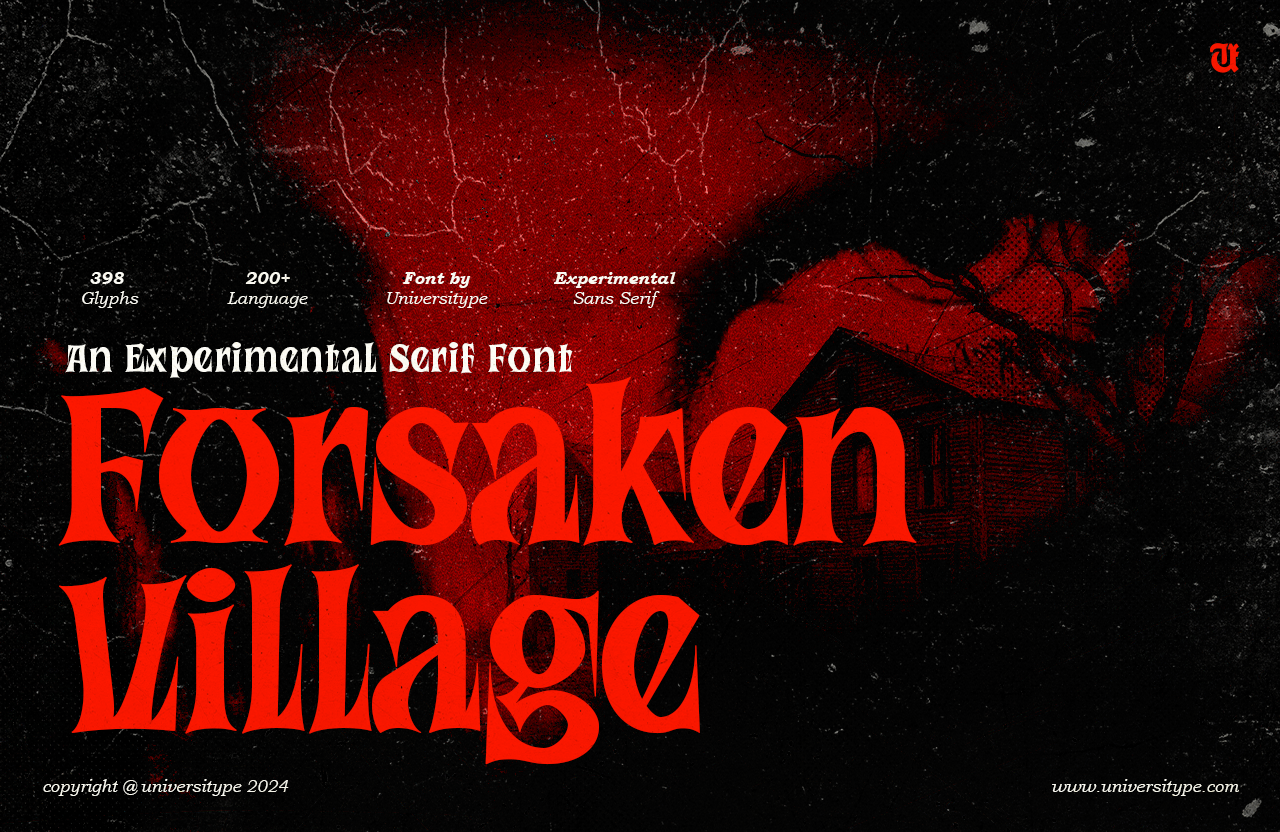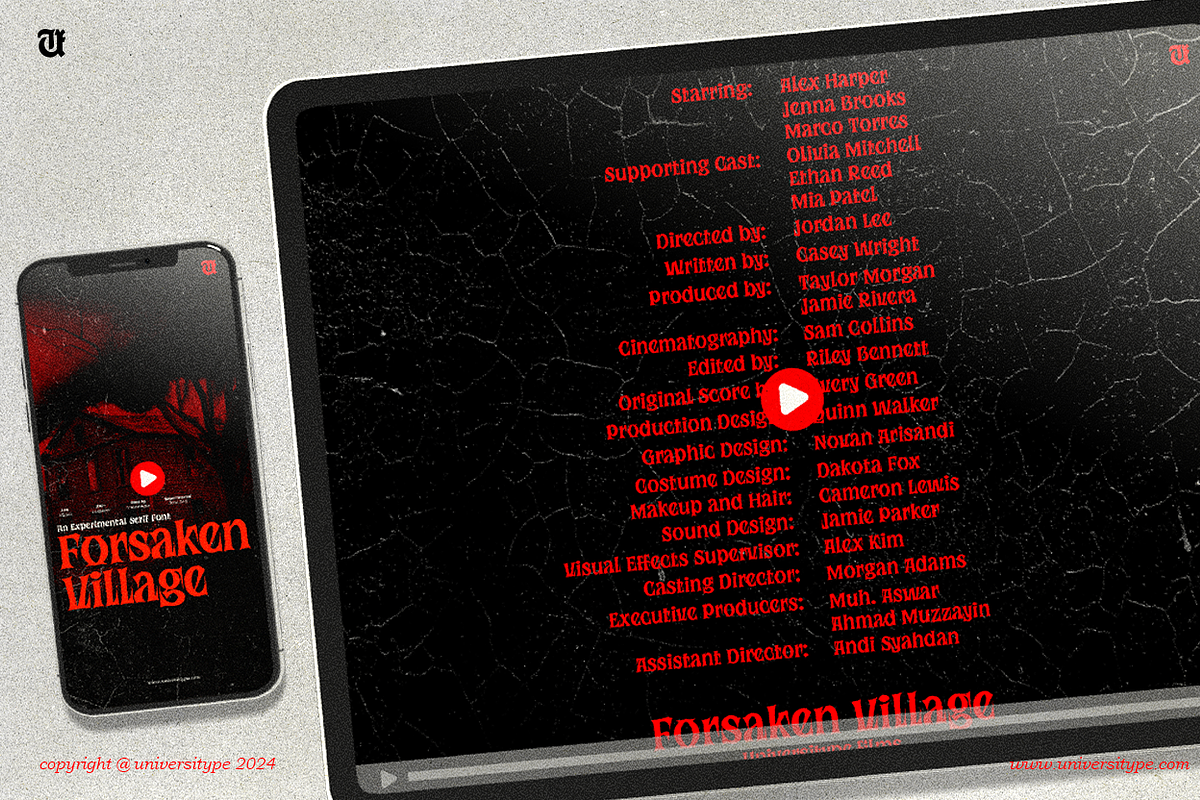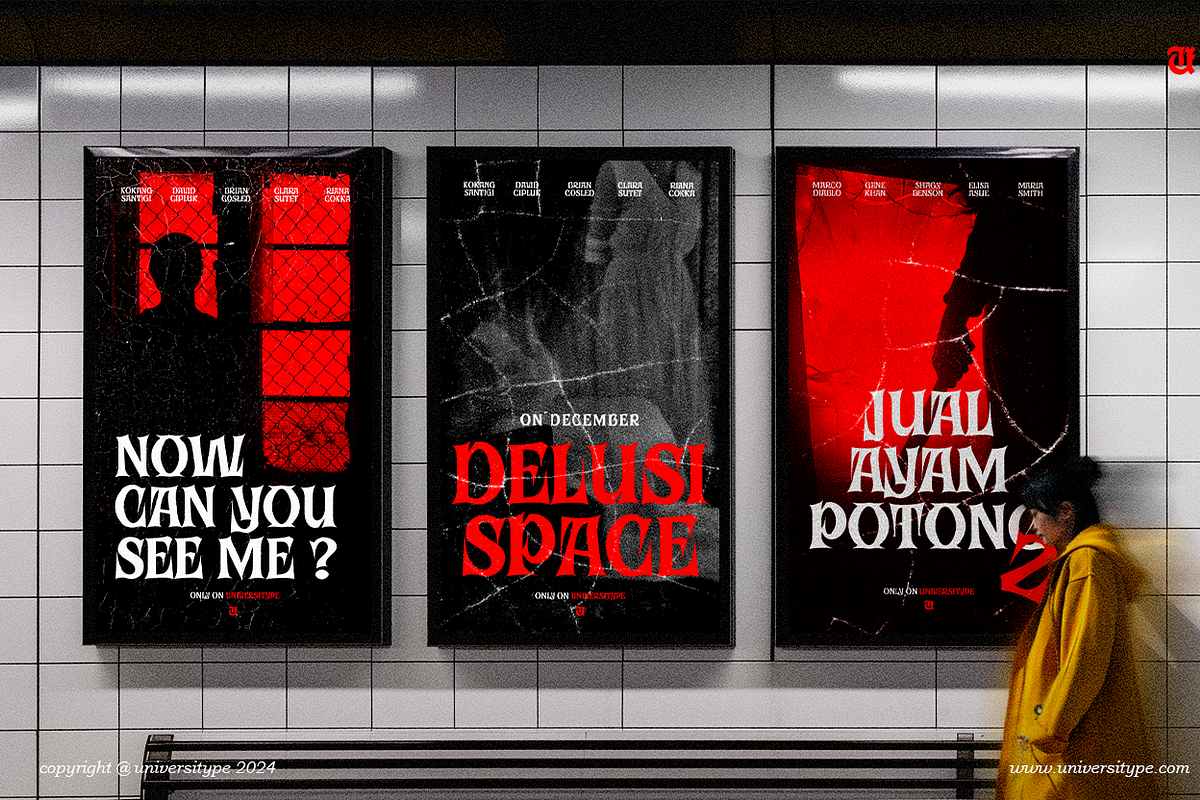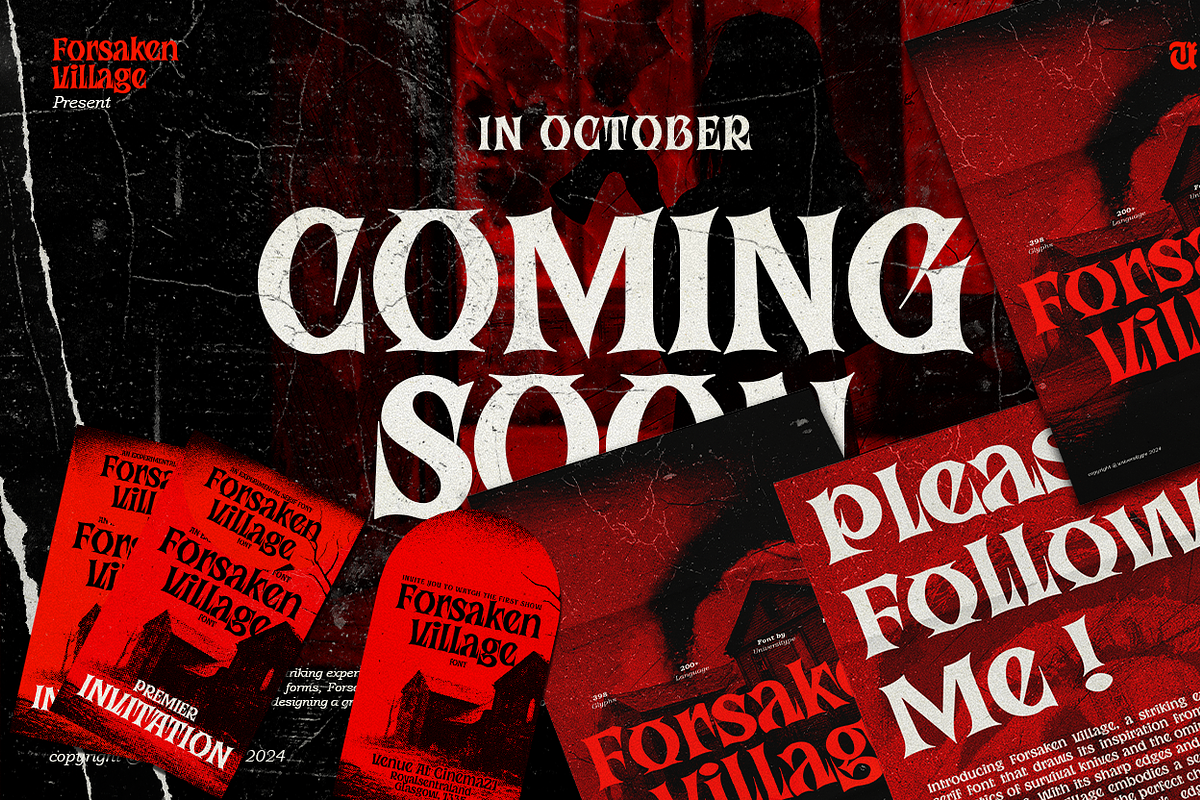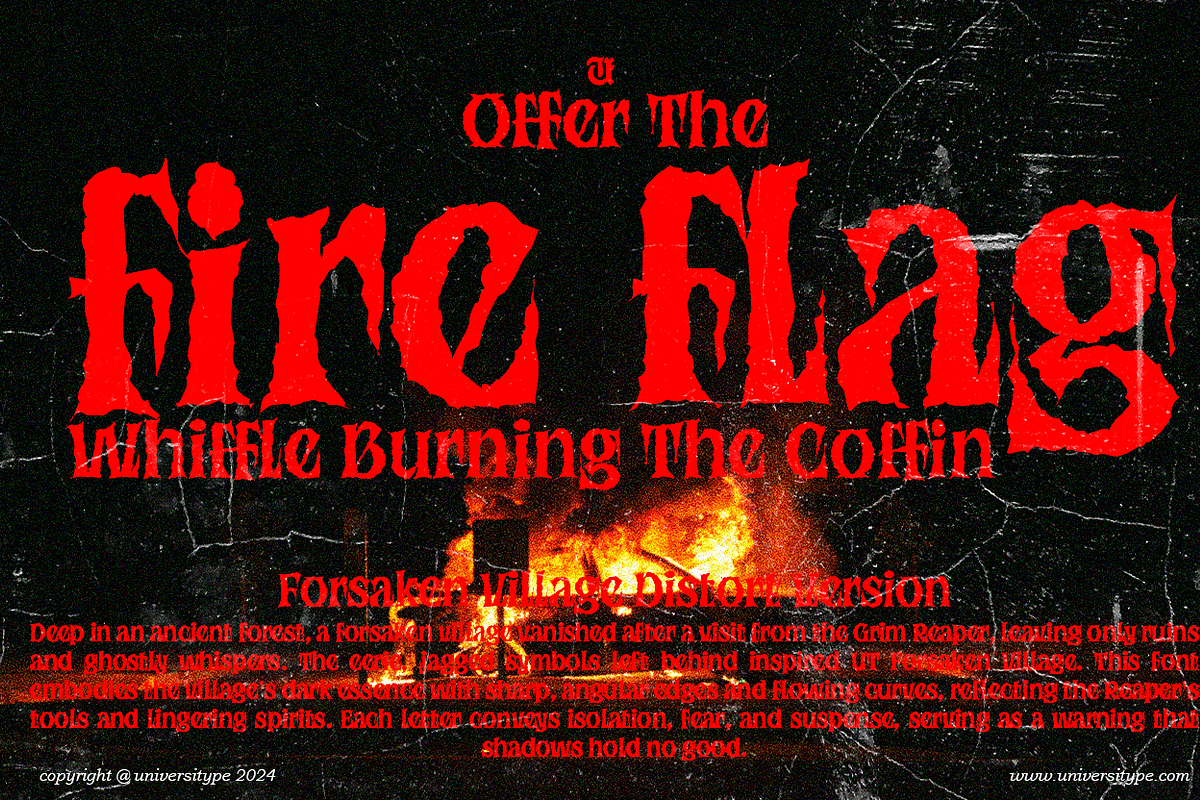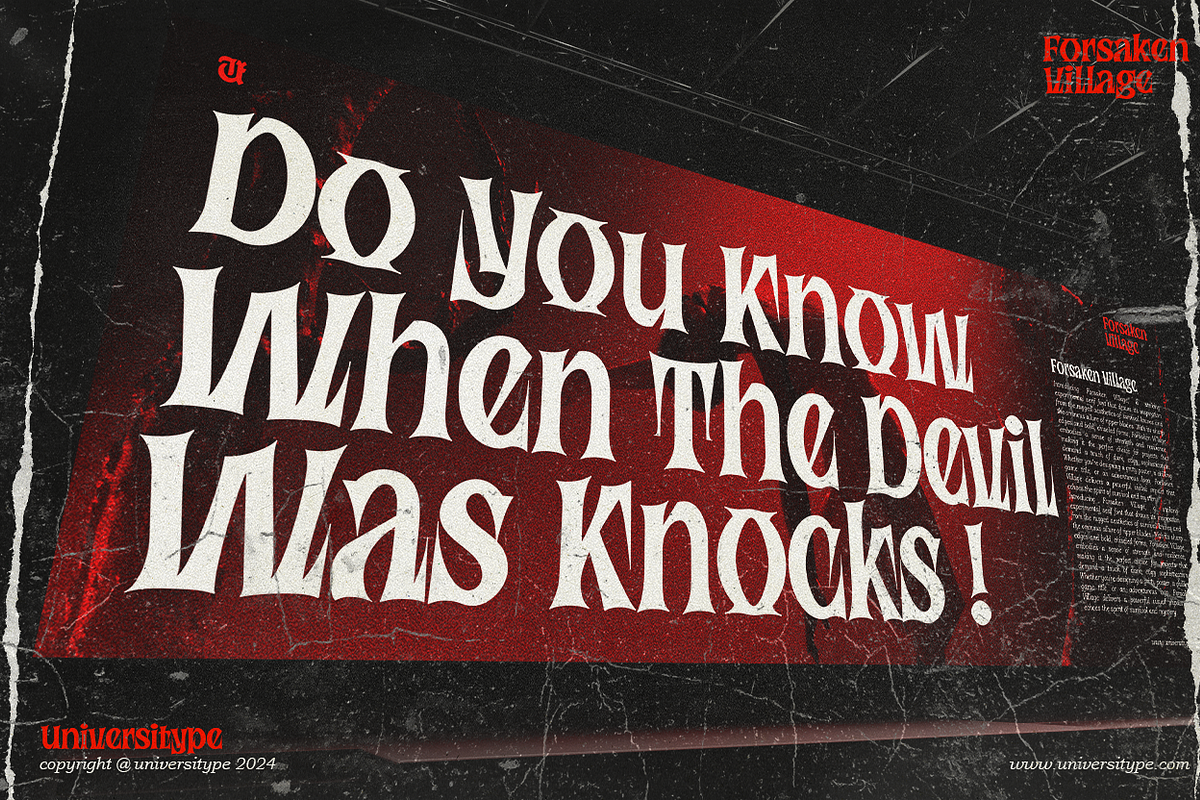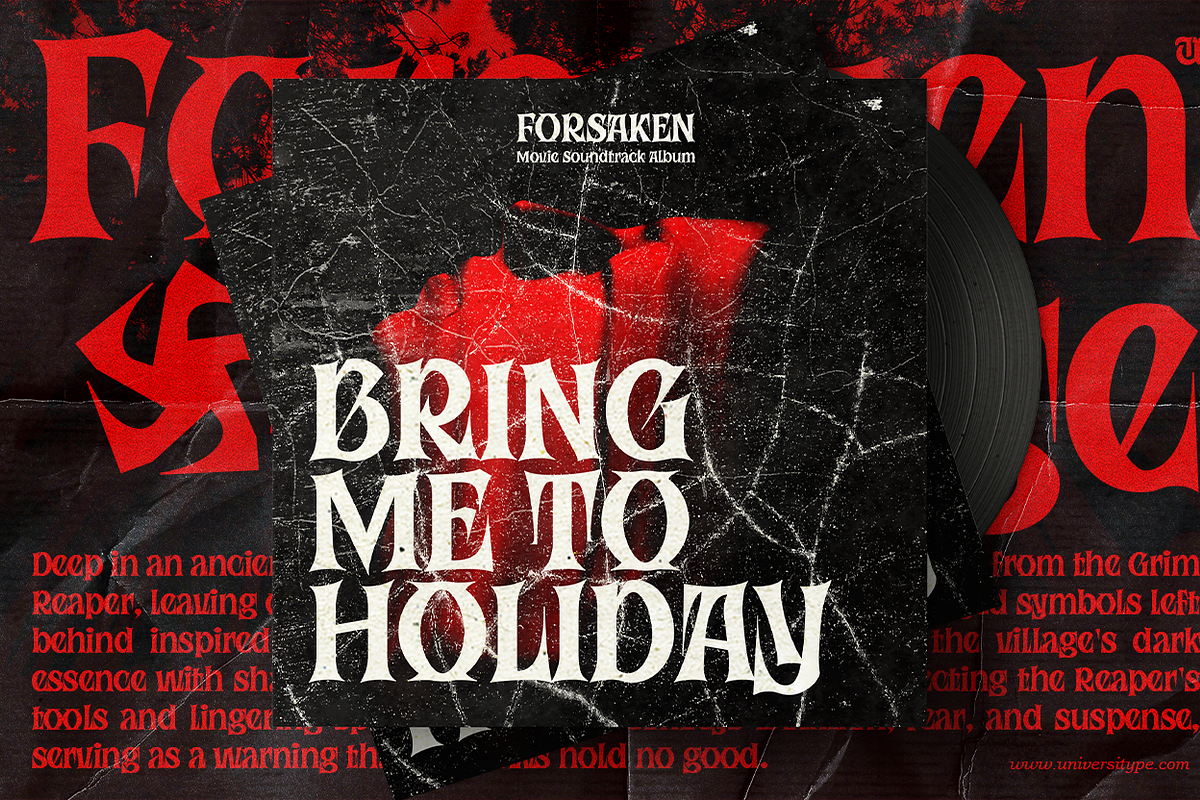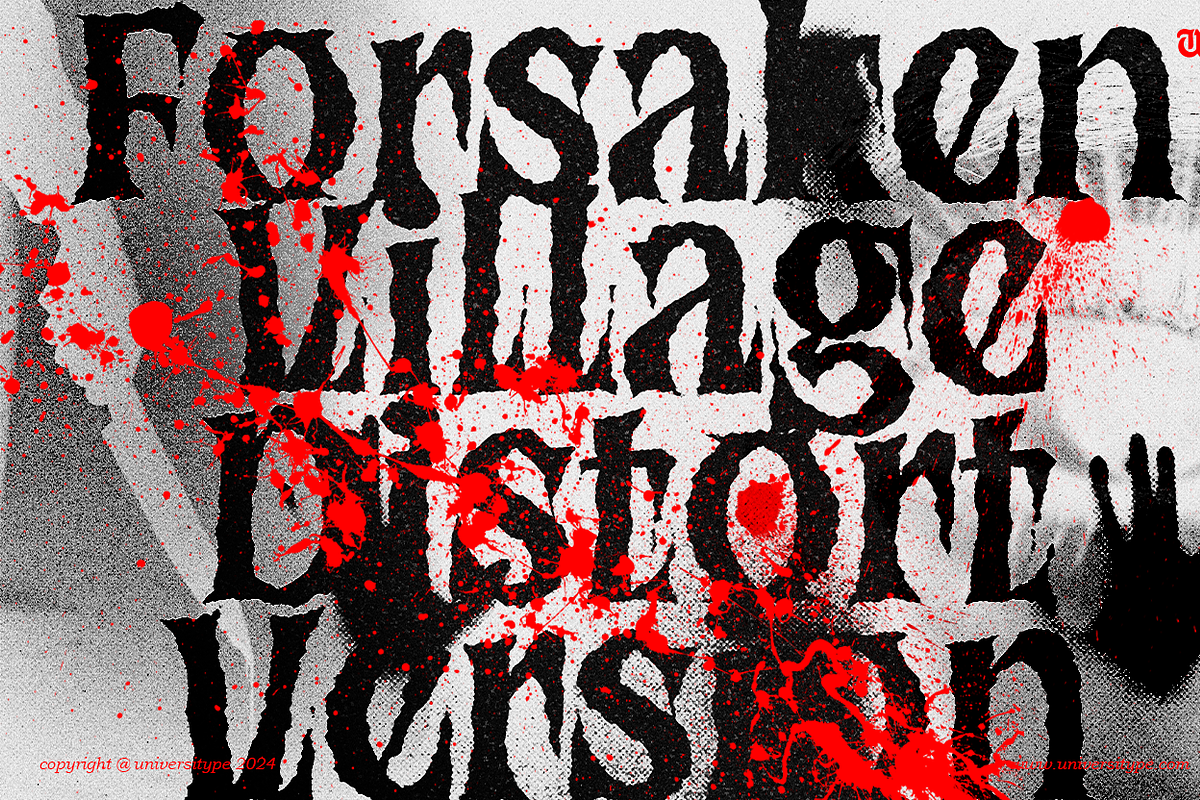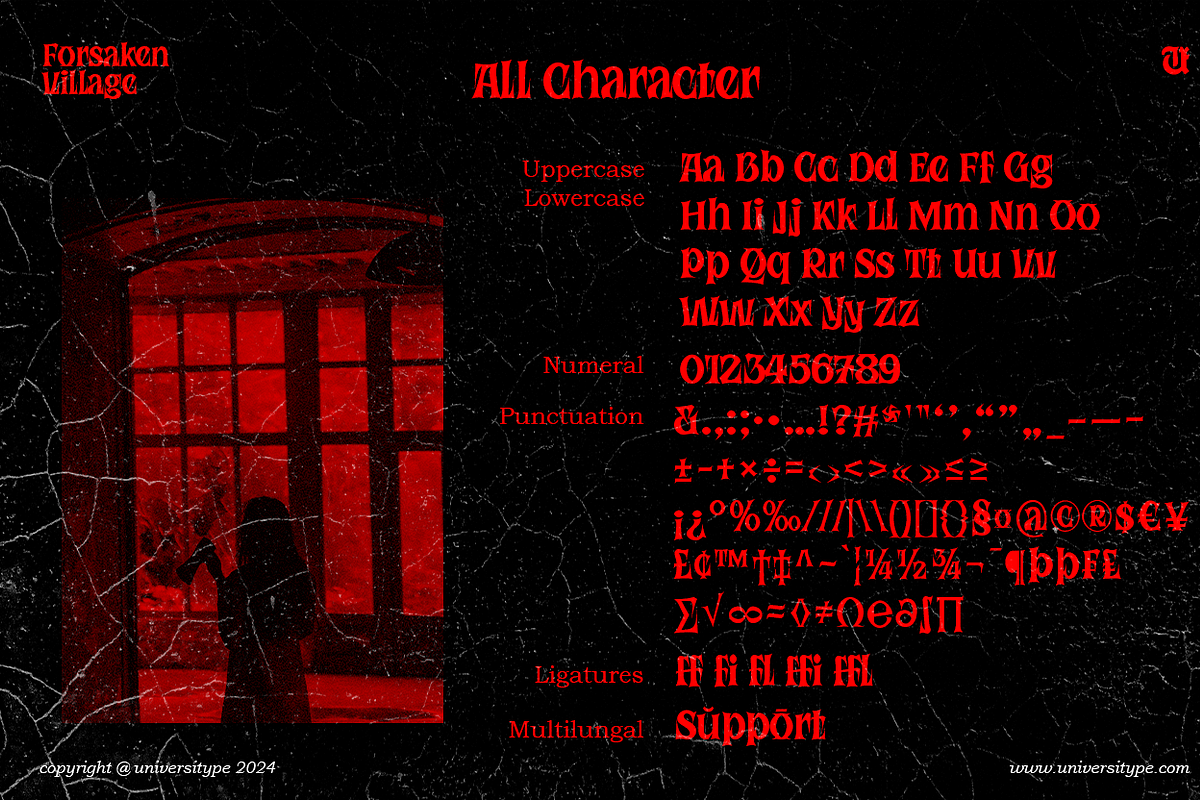
UT Forsaken Village - A Scary Font
Step into the dark, mysterious world with UT Forsaken Village, a terrifyingly captivating font inspired by the ominous presence of the Grim Reaper himself. This font evokes a spine-chilling atmosphere, perfect for projects where you want to elicit fear, suspense, and intrigue. With sharp edges, distorted strokes, and haunting silhouettes, UT Forsaken Village is not just a typeface but a journey into the unknown—a village left abandoned, where shadows whisper and darkness reigns.
This scary font taps into the essence of horror and gothic design, perfect for those who dare to step into the realm of the supernatural. The bold strokes are designed to evoke fear, while the intricate details provide an eerie elegance. Whether you’re crafting a horror movie poster, a haunted house invitation, or a chilling book cover, UT Forsaken Village will bring a sense of dread to your designs.
Beyond its ominous appearance, UT Forsaken Village offers versatility, making it a functional yet aesthetic choice for horror-themed branding. The typeface seamlessly blends old-world gothic elements with modern sensibilities, resulting in a font that feels timelessly unsettling. Its fluid adaptability also means it can be used in various digital and print projects while maintaining its eerie charm.
Target Audience UT Forsaken Village is tailored for creatives who work in industries that often lean on dark, mysterious, or horror-inspired aesthetics. Ideal for graphic designers, branding experts, and marketing teams working in entertainment, this font is perfect for:
- Horror and Thriller Content Creators: Whether it’s for a film studio producing horror movies, an indie game developer building a dark, atmospheric video game, or a YouTuber known for eerie, supernatural content, UT Forsaken Village can provide the spine-tingling typography needed to match their visual style. see UT Forsaken Village in a trailer movie
- Publishers and Authors of Horror Fiction: For book covers, chapter titles, and even digital e-books, this font is an excellent choice for any literature aiming to thrill or terrify. The font pairs exceptionally well with grim and atmospheric book genres like horror, supernatural fiction, and gothic fantasy.
- Event Planners for Halloween or Horror-Themed Parties: Whether for personal parties or professionally staged haunted houses, UT Forsaken Village can be the perfect touch for invitations, event banners, and promotional materials, setting the tone for a night filled with frights.
- Gothic and Alternative Fashion Brands: Fashion labels that focus on gothic or alternative clothing lines can use this font in their marketing materials, packaging, and even on apparel itself. The font’s sharp edges and twisted strokes match well with dark fashion themes.
- Tattoo Artists and Parlors: The distinctive aesthetic of UT Forsaken Village could serve as inspiration for tattoo designs or tattoo parlor signage, particularly in shops specializing in gothic or horror art.
- Dark and Ominous Aesthetic: The first thing you’ll notice about UT Forsaken Village is its grim, foreboding look. Every letter is crafted with jagged edges and dark undertones, perfectly evoking the essence of fear, suspense, and supernatural dread.
- Versatile Design for Horror-Themed Projects: Although the font leans heavily into the scary category, its subtle detailing allows for a broader range of applications. It’s versatile enough to be used in digital media, branding, and even physical product designs.
- Sharp, Unsettling Characters: Each letter feels intentionally designed to appear slightly distorted, as though twisted by dark magic or abandoned in a haunted village for centuries. The curvature and jaggedness of the characters give it an unpredictable, nerve-wracking feel.
- Highly Legible Despite Its Unique Style: Despite the macabre aesthetic, legibility remains a key feature. UT Forsaken Village ensures that no matter how intense the design, readability is never compromised. Whether used in titles or smaller blocks of text, the font maintains clarity while staying visually arresting.
- Vintage Gothic Inspiration Meets Modern Design: While the font is undeniably influenced by old-world gothic typefaces, it carries a modern flair that makes it equally suitable for contemporary projects. Its balance between classic and current allows it to appeal to a wide range of creative endeavors.
Inspiration Behind the Design UT Forsaken Village takes its inspiration directly from the Grim Reaper, the harbinger of death in folklore. The Grim Reaper is often depicted as a skeletal figure cloaked in darkness, scythe in hand, guiding lost souls to the underworld. Much like this mythical figure, UT Forsaken Village is meant to evoke both fear and fascination.
The font’s sharp lines and distorted shapes were conceptualized to mirror the feeling of walking through a long-forgotten, haunted village—where every corner holds the potential for an eerie encounter. The overarching goal was to craft a typeface that reflects both the fear of death and the allure of the unknown. The sense of decay, abandonment, and lingering spirits played a significant role in the design choices, resulting in a font that feels like it belongs in a realm caught between life and death.
In summary, UT Forsaken Village is a chilling, gothic-inspired typeface that transports its audience into the heart of a haunted, forsaken village. Perfect for horror and thriller projects, this font’s eerie design and impeccable legibility make it a versatile choice for designers aiming to capture the essence of fear in their work.